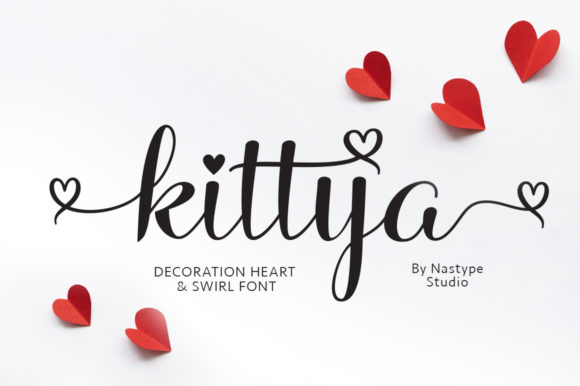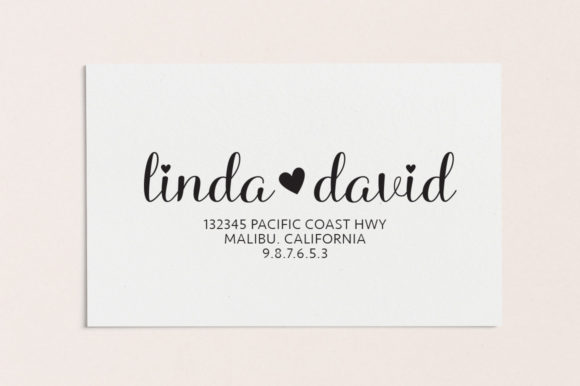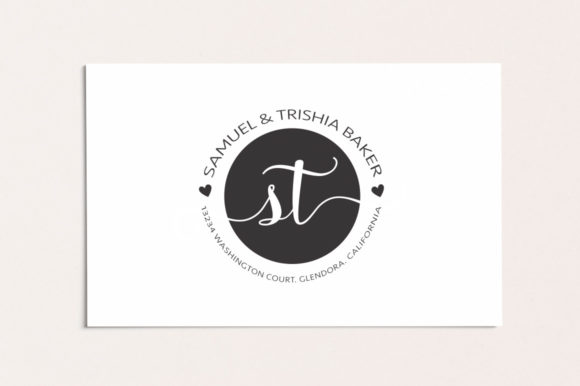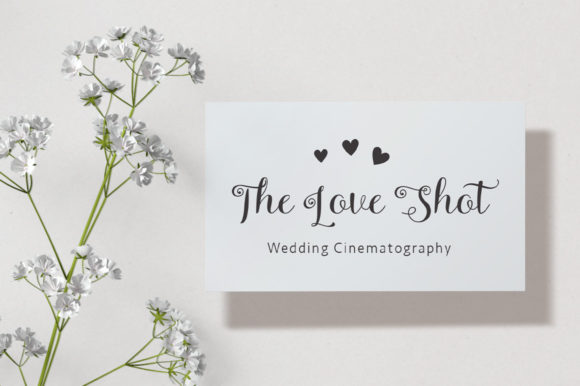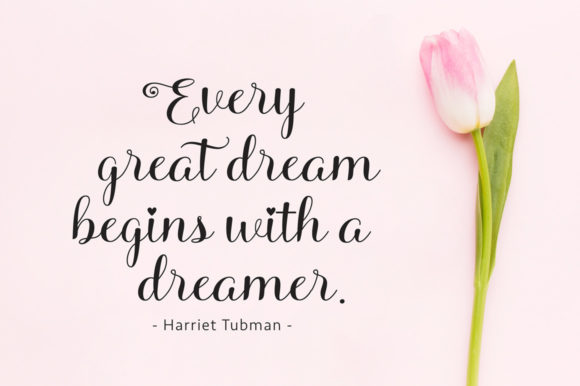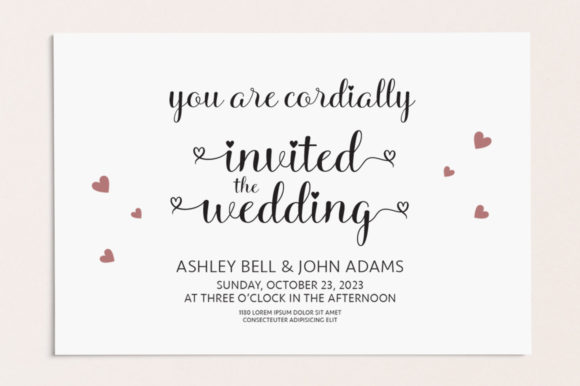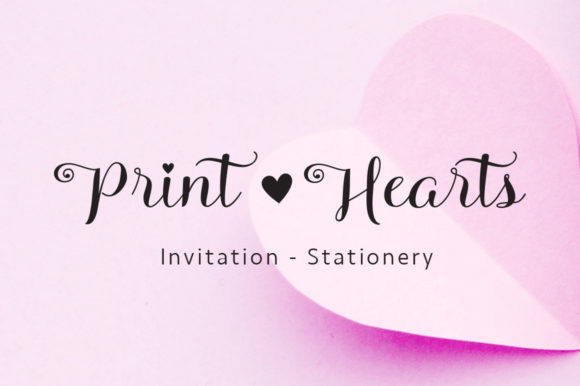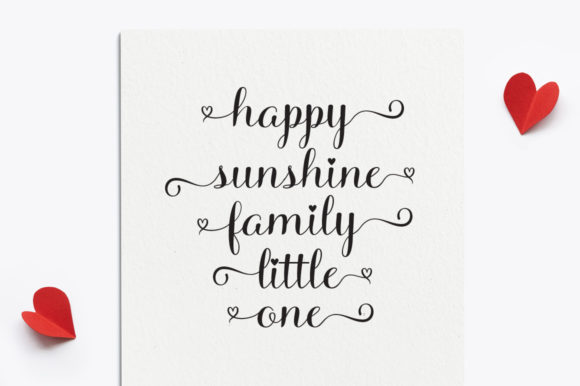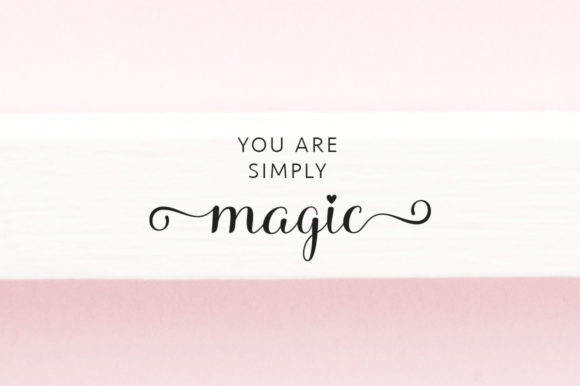
Kittya Script Font
About Kittya Script Font
Kittya Script is a stylish and incredibly elegant script font. It looks stunning on wedding invitations, thank you cards, quotes, greeting cards, logos, business cards and more.